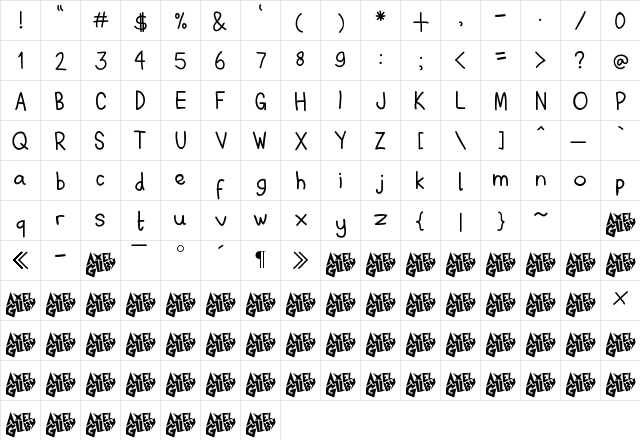
Axel Gilby Comic Sans Regular
Design Context for Axel Gilby Comic Sans Typeface
Axel Gilby Comic Sans has an approachable, lighthearted character — its loose, expressive forms are well-suited to children's content, casual branding, and fun-first design.
Font Pairing: Pairs well with a rounded or humanist sans for body copy, maintaining the friendly tone without relying on Axel Gilby Comic Sans to carry extended reading.
Pro Tip: Avoid using Axel Gilby Comic Sans for long passages of text — it works best for headlines, labels, and short calls to action.